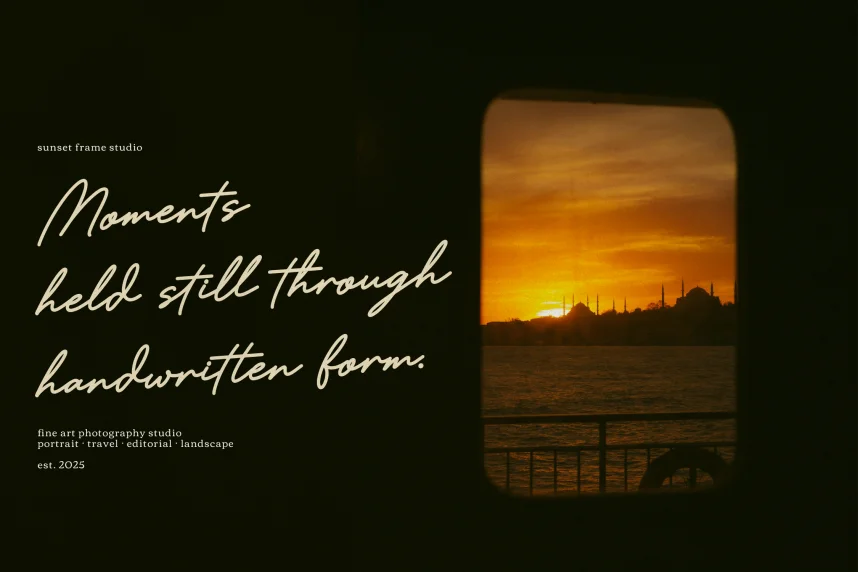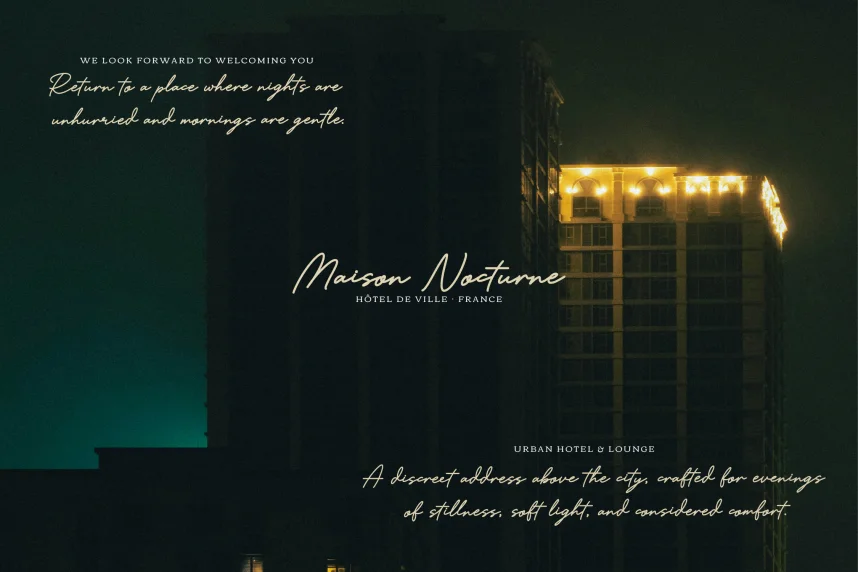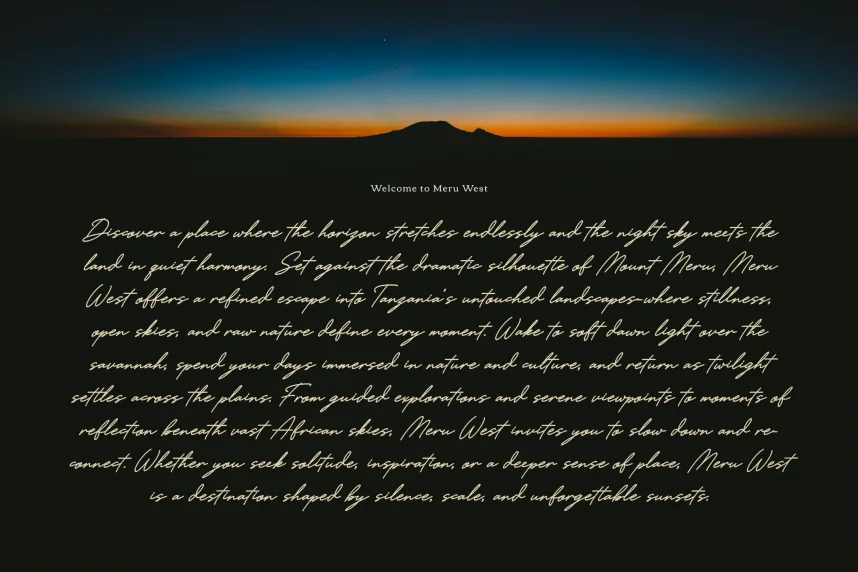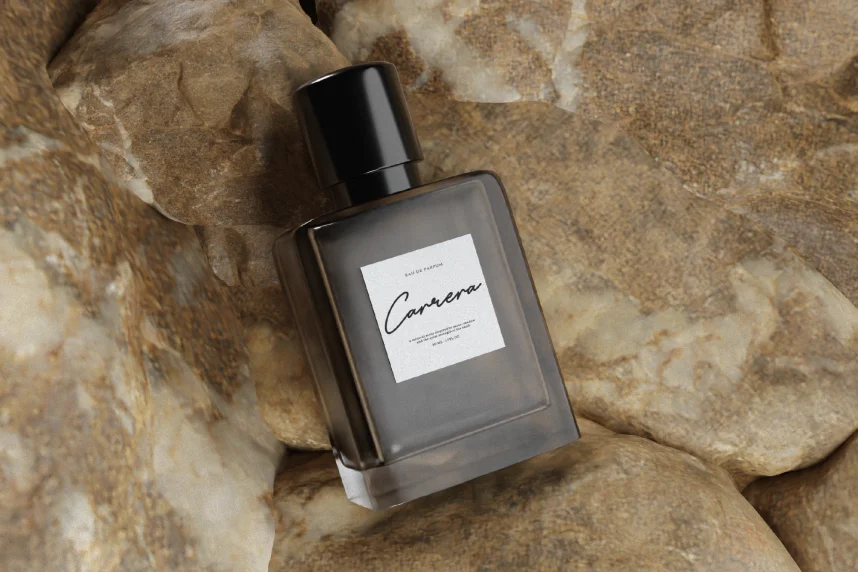
Fiorelyne Font is a handwritten signature typeface created to support branding and personal identity projects where clean handwriting matters. Designers often struggle with signature fonts that look natural but remain readable in logos, social media graphics, and professional signatures.
Fiorelyne uses thin strokes, smooth curves, and consistent letter spacing to simulate natural pen movement. The letterforms connect fluidly, with minimal swashes and controlled ligatures. This structure helps maintain clarity while keeping a handwritten appearance. The font is intended for short text such as names, headings, and branding accents.